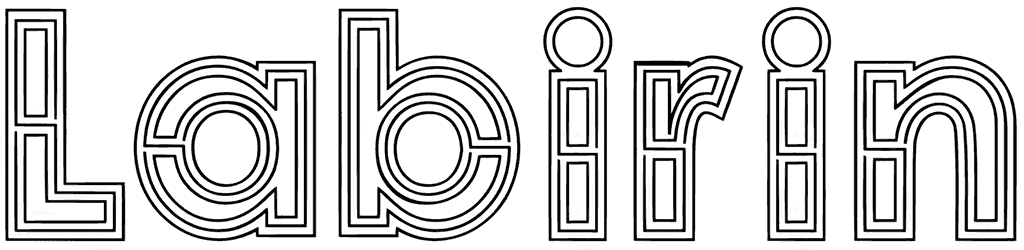
Labirin Font
If you are interested in maze font, you face a hollow, perfect one with a standard touch. The fans of Labirin can rely on this outline font for company letterhead, detective movie titles, official events, magazines, and branding requirements. This space font would be one of your game-changing fonts, especially for leveling up your typography design from others.